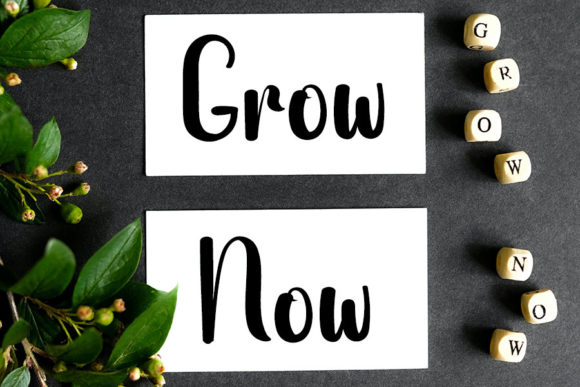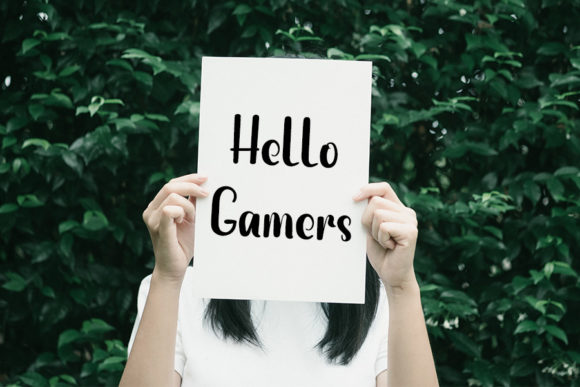
Basketball Font
db-ku.com - Script & Handwritten -- Basketball is a trendy handwritten font with a contemporary atmosphere and impeccable form, inspired by a timeless classic calligraphy. This font is PUA encoded which means you can access all glyphs and swashes with ease!